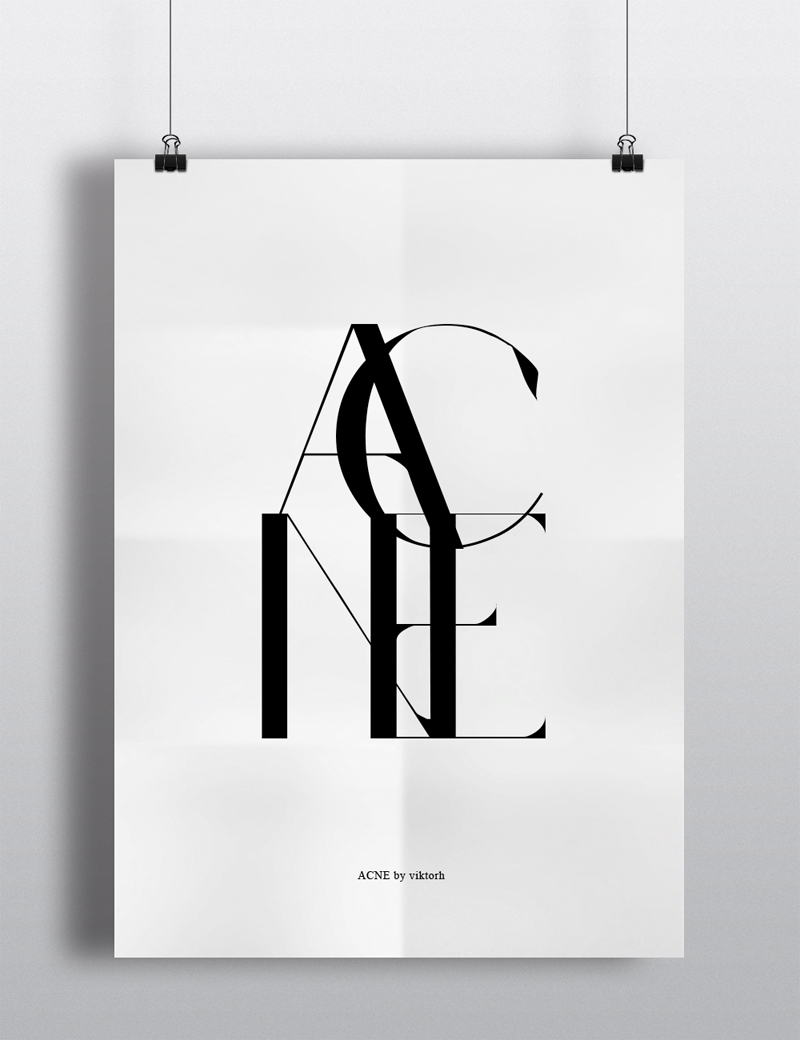
Font name: | Acne |
Author: | Viktor Hammarberg |
Note by Viktor Hammarberg | |
A quick experimental font inspired by the brand Acne and the fashion sort of vibe. |